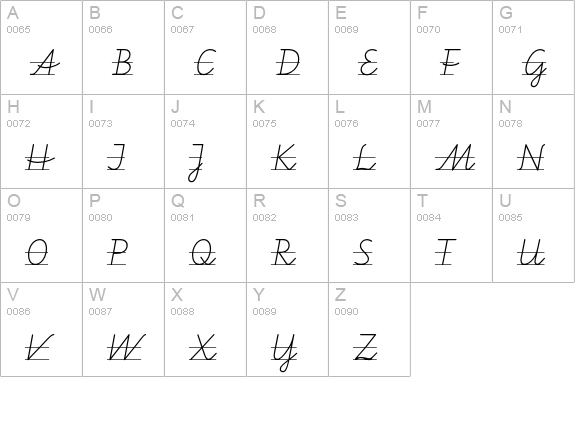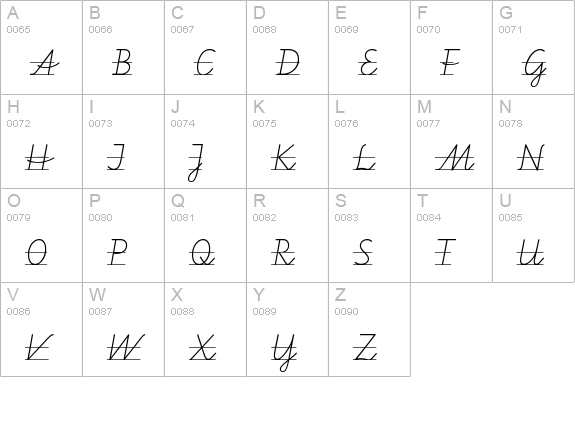
SchulschriftA-L2 Font Details
SchulschriftA-L2 font is a delightful and versatile typeface that combines elegance with a touch of playfulness. This font is perfect for various creative projects, including posters, invitations, branding, and more. Featuring beautifully crafted letterforms, SchulschriftA-L2 font exudes a sense of timeless charm. Its flowing lines and well-balanced proportions make it pleasing to the eye, ensuring that your designs will have a sophisticated and polished look. One of the standout features of SchulschriftA-L2 font is its versatility. It can adapt to various design styles, whether you're going for a classic and refined look or a more contemporary and avant-garde approach. This font truly offers endless possibilities for your creative endeavors. But what makes SchulschriftA-L2 font even more appealing is that it is free to download. That's right! This amazing font is freely available at FontsMarket.com, making it accessible to designers and enthusiasts alike. Now you can elevate your designs without breaking the bank. So why wait? Download SchulschriftA-L2 font today and unleash your creativity. Whether you're a professional designer or a hobbyist, this font will surely become a valuable addition to your toolkit. Let SchulschriftA-L2 font bring your ideas to life and make a lasting impression on your audience.